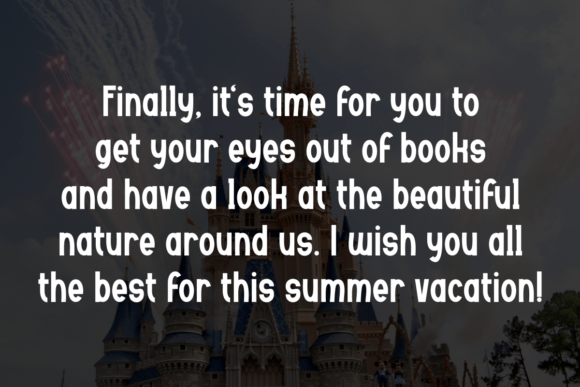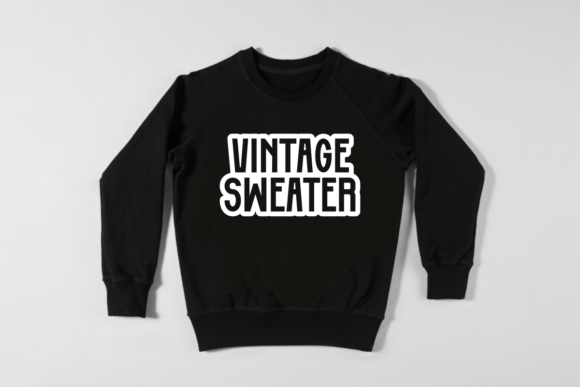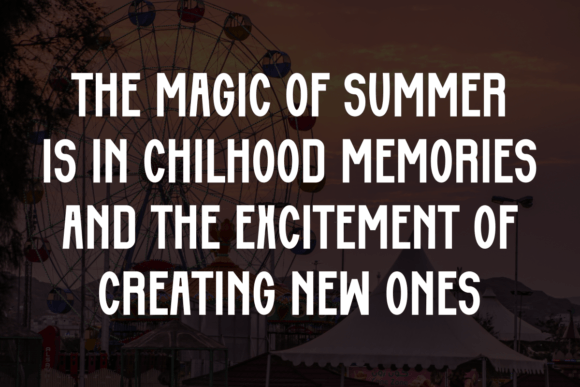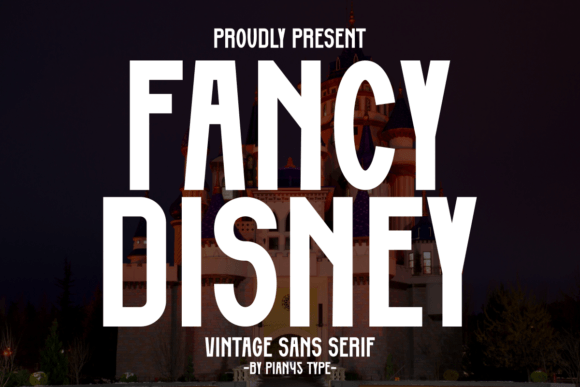
Introduction to Fancy Disney Font
Fancy Disney is a unique and elegant vintage sans serif typeface with a clean and bold style, perfect for capturing the essence of summer holidays.
This font adds a touch of classic elegance to your creative projects Perfect for quotes, posters, movie titles, apparel design, mugs, tote bags and greeting cards.
Fancy Disney Font offers exceptional quality and versatility, making it a valuable addition to your design toolkit. Whether you’re creating for personal projects or commercial use, Fancy Disney Font delivers professional results.